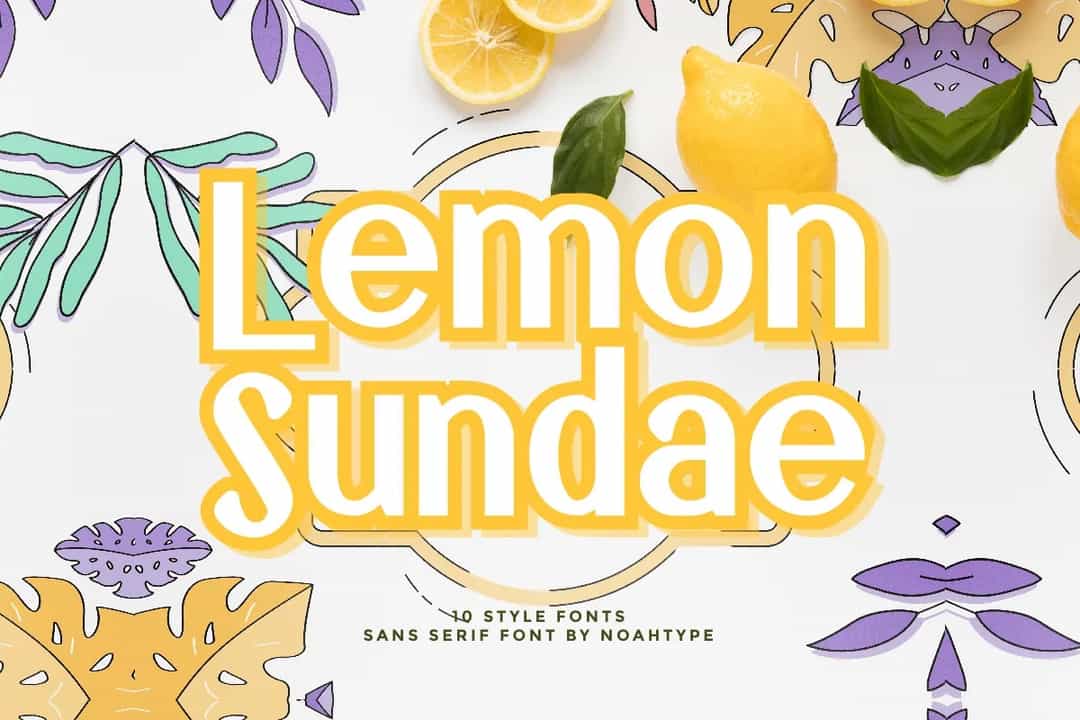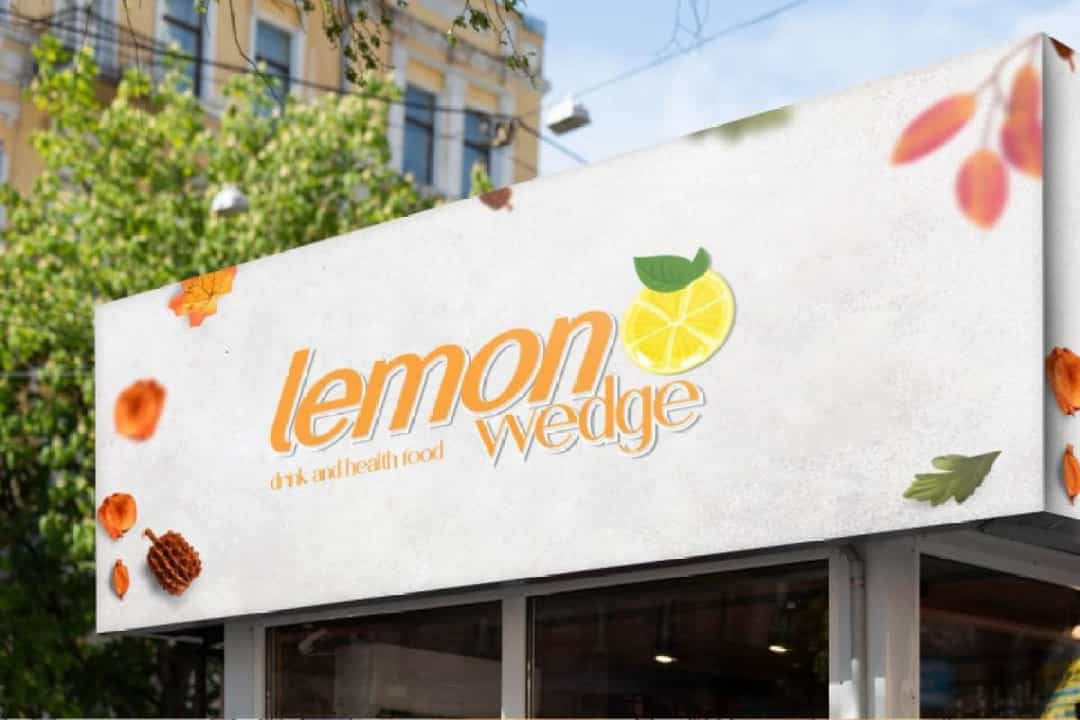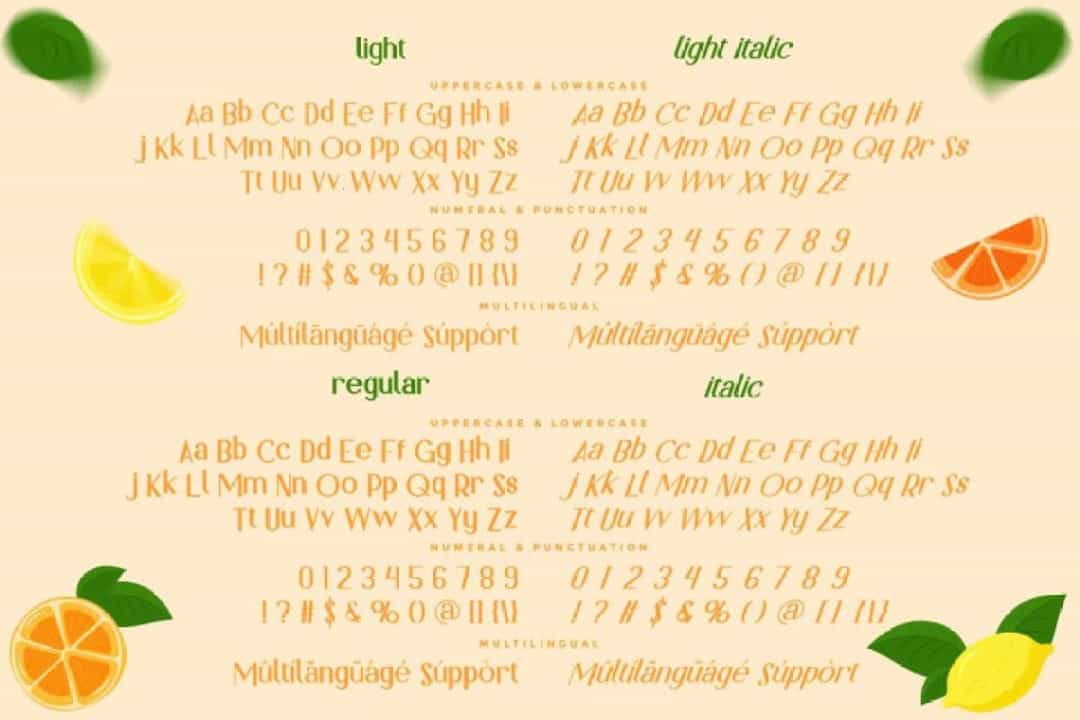
Lemon Sundae Font is an innovative and contemporary sans serif font that is designed by NoahType exclusively. The font features 10 styles/weights which can be used for different occasions: thin, regular, italic thin italic light medium italic medium and bold font styles are included – ideal for events publishing printing food beverages interior design furniture and more!